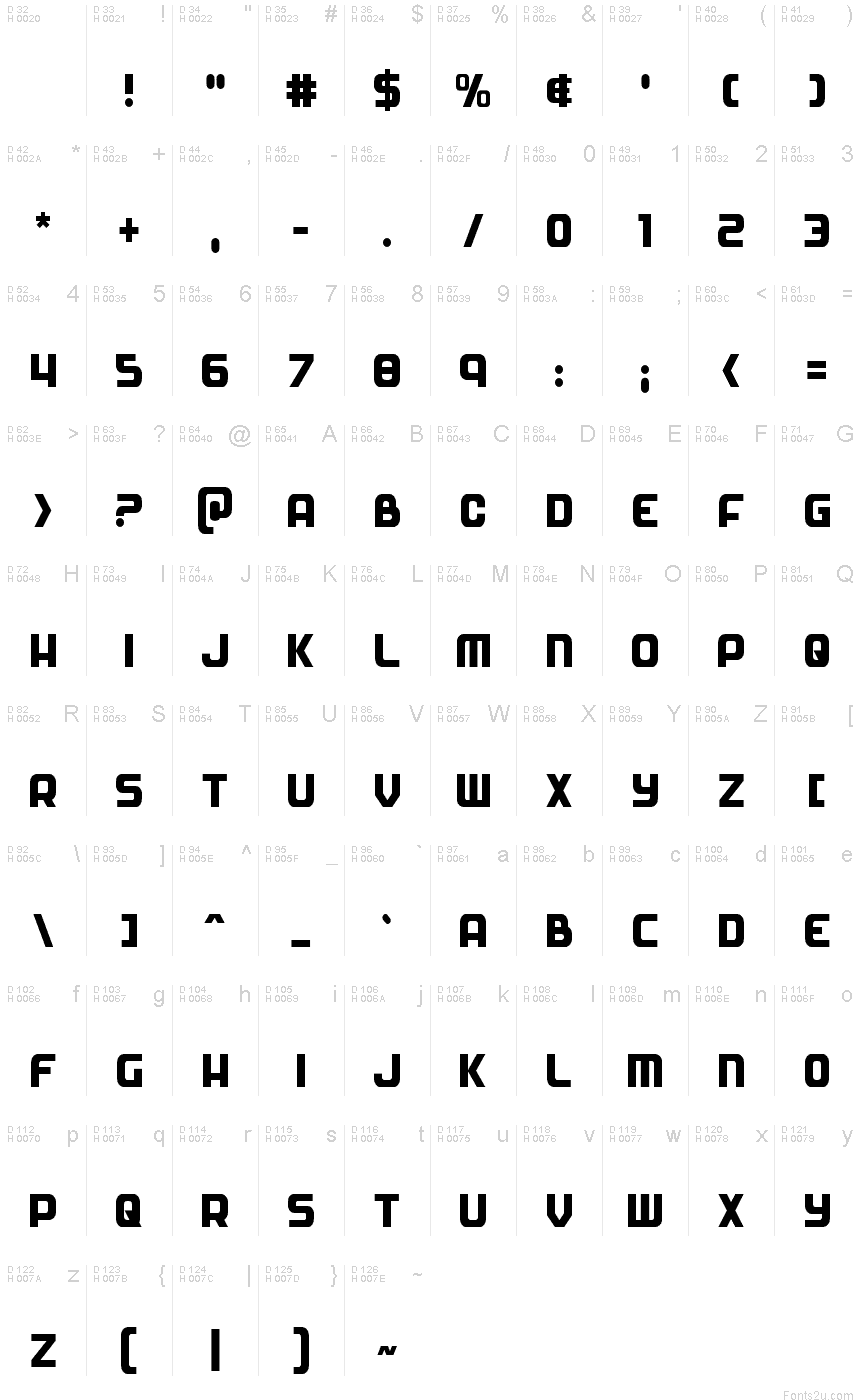
Soldier Condensed by Daniel Zadorozny of Iconian Fonts is a free condensed techno display font with the severe industrial profile of military stenciling, machine labels, and armored equipment. Its tall, tightly packed letters use broad vertical strokes, squared curves, clipped joints, and narrow interior openings to form a dense line that looks engineered for strength and speed.
Game title cards are its clearest use. That compact, hard-edged construction also suits action-film posters, esports merchandise, industrial packaging, and motorsport graphics, especially when the lettering needs to echo vehicle panels, equipment markings, or heavy-duty signage rather than acting as ordinary neutral printed type.